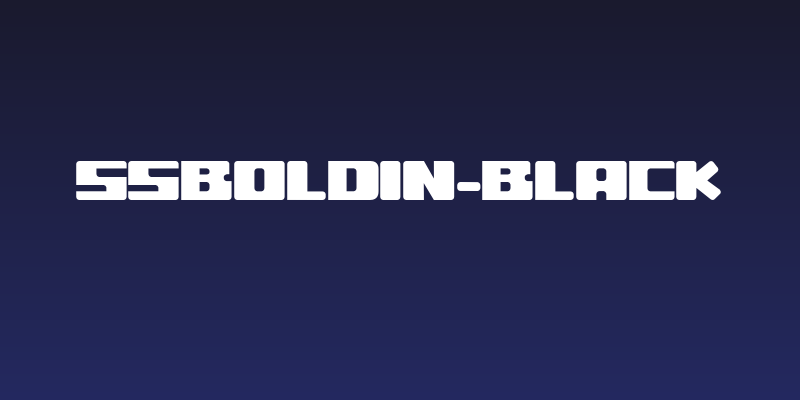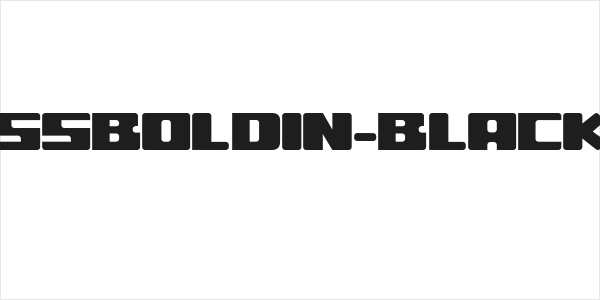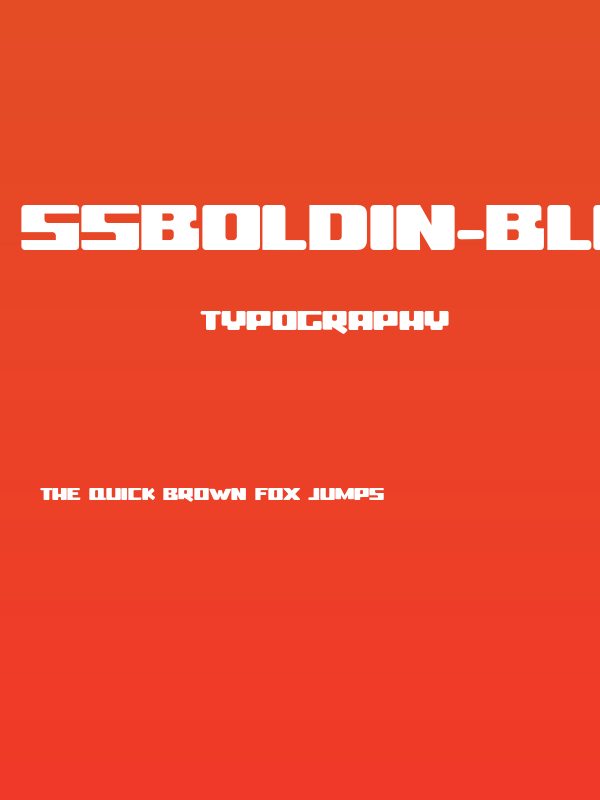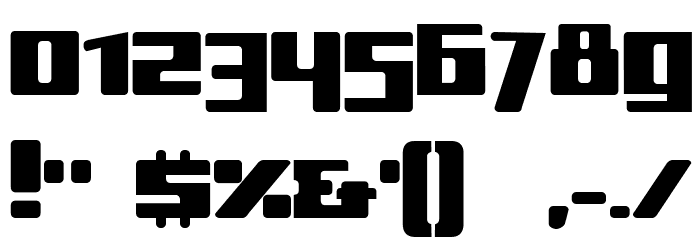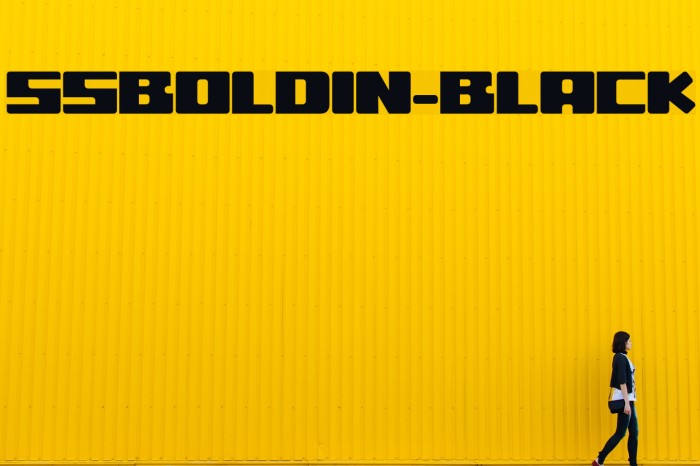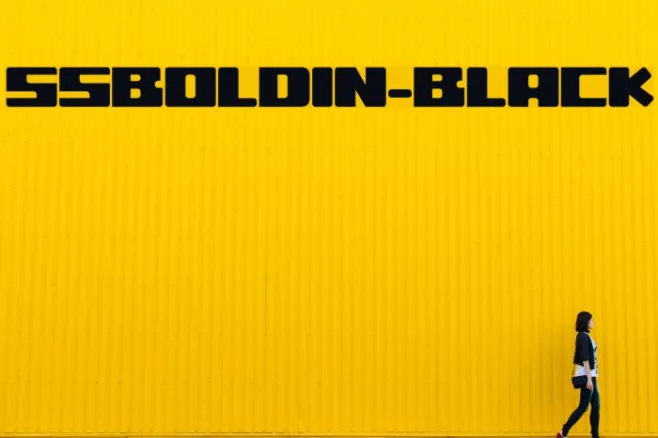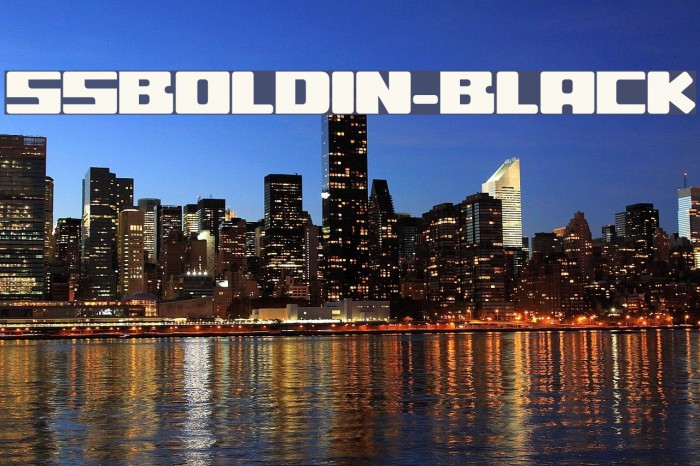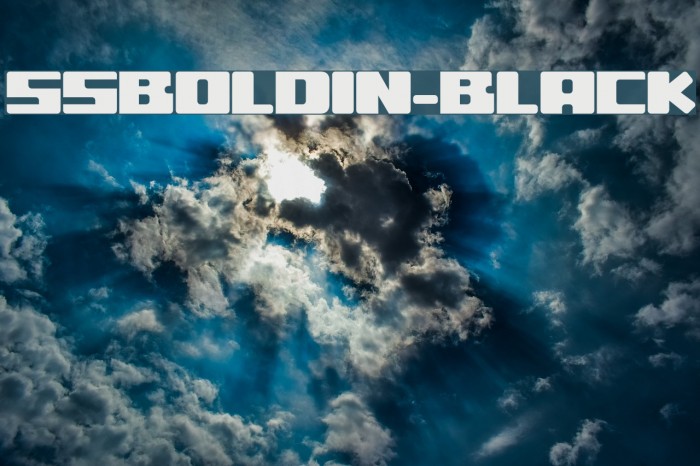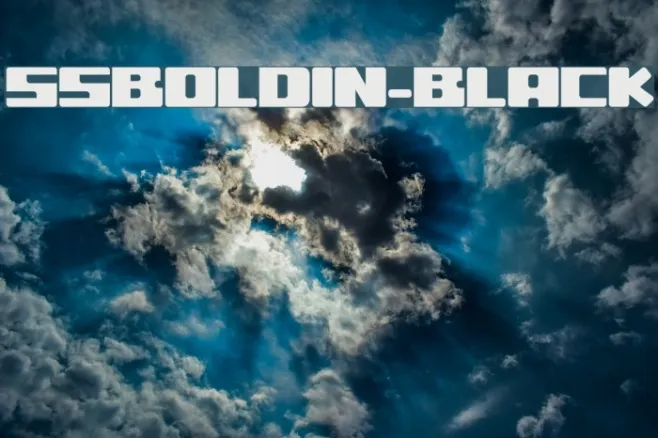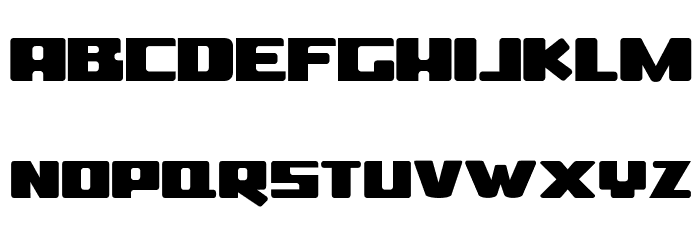
ssboldin-Black Font
ssboldin-Black Description
This font features a bold, geometric design with strong, block-like characters. The uppercase letters are uniform in height and width, creating a cohesive and powerful appearance. The lowercase letters maintain the same boldness, with slightly rounded edges that add a touch of softness to the otherwise robust design. Numbers and special characters follow the same geometric style, ensuring consistency across all elements. The font's thick strokes and minimal contrast make it highly legible, even at smaller sizes. Its modern, industrial aesthetic is perfect for projects that require a strong visual impact.
| Proposed Projects | Ideal for branding, posters, headlines, and any design requiring a strong visual impact. |